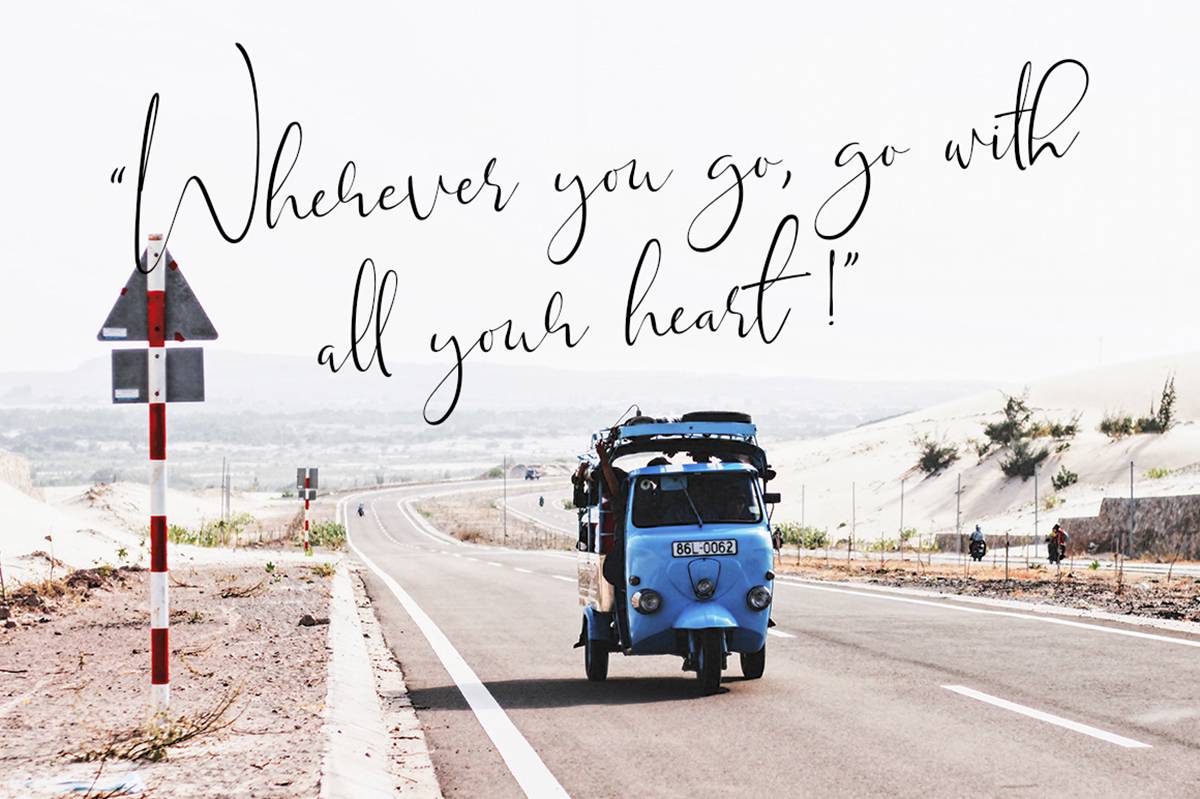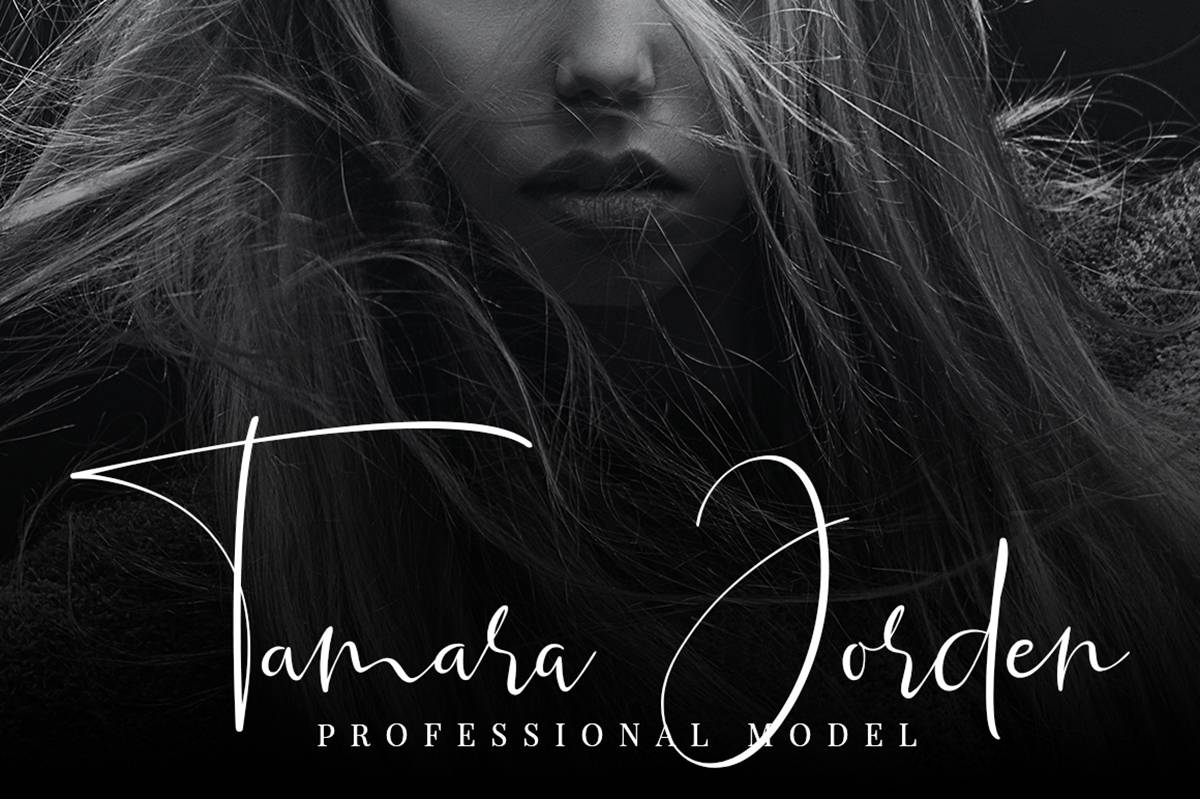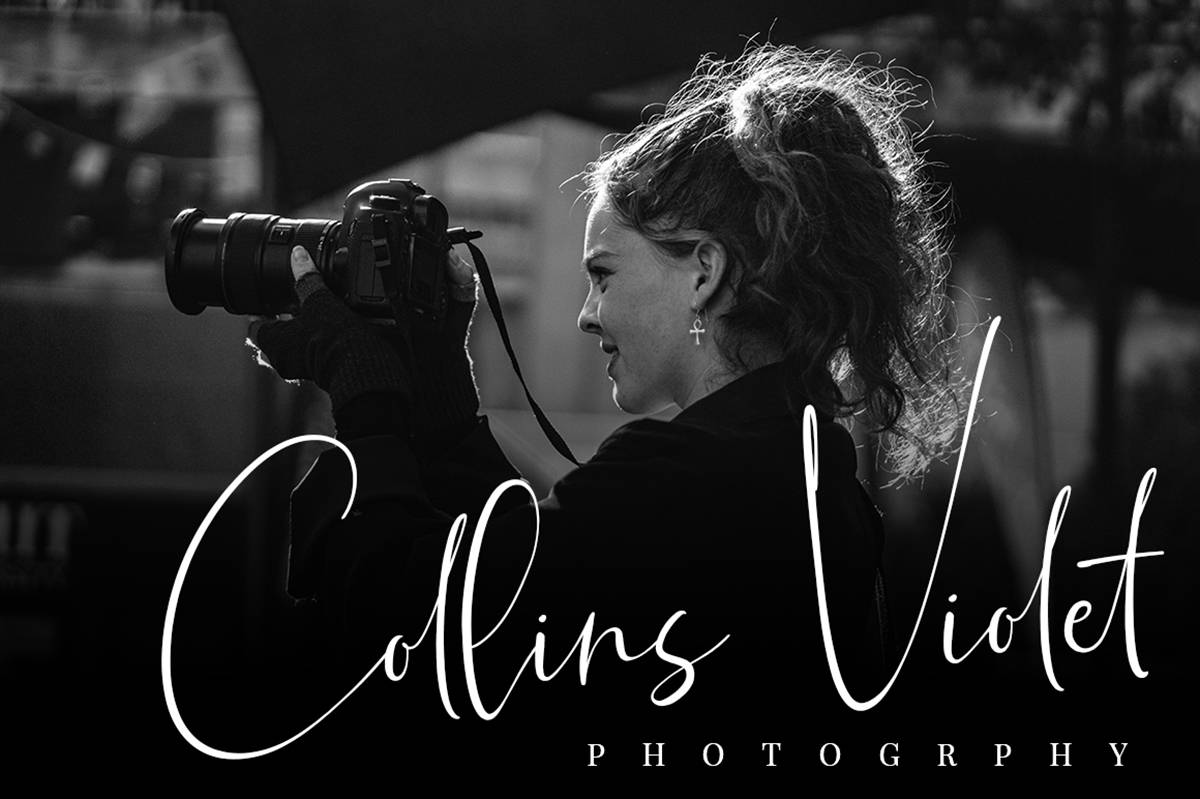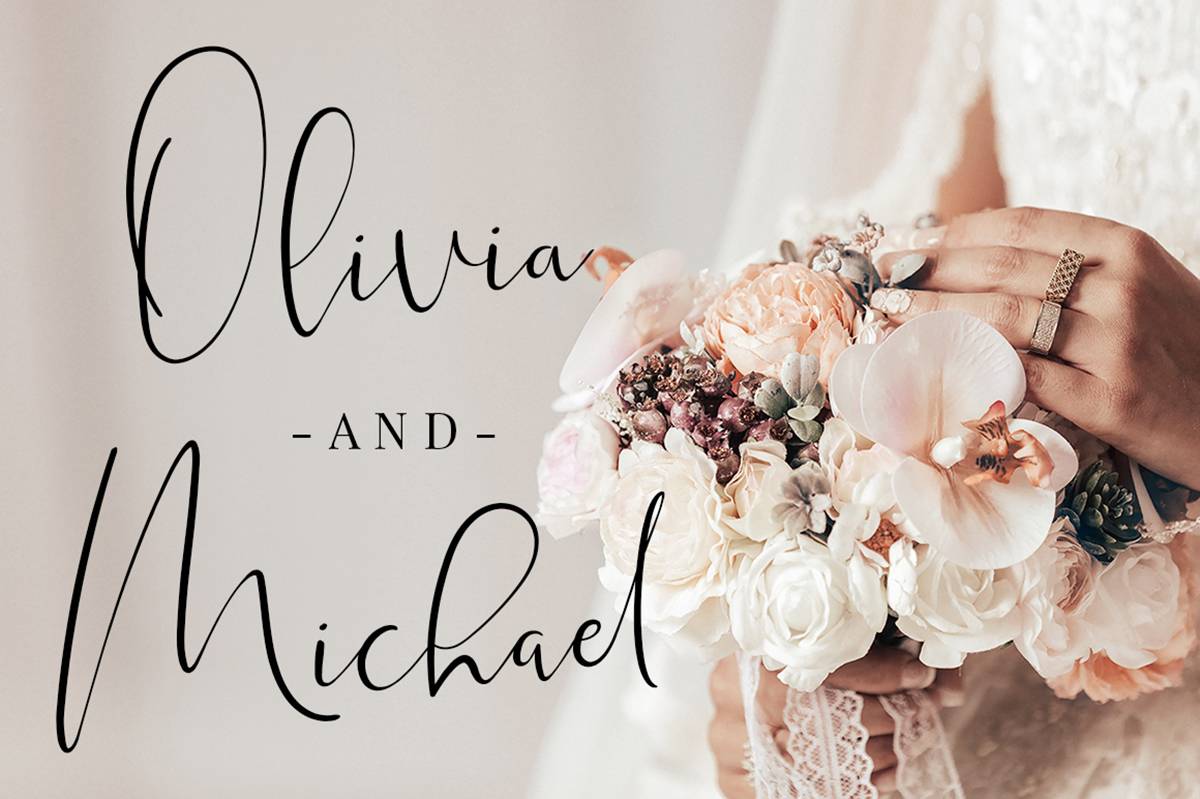
Sweet Madelyn is a delicate, handwritten script font characterized by its thin, wispy strokes and elegant, airy letterforms. Its tall, narrow letters with playful loops and subtle flourishes give it a graceful, whimsical feel, making it ideal for feminine branding, wedding invitations, and stylish editorial designs. This font conveys a light, personal touch that works beautifully in contexts where charm and sophistication are key.
Sweet Madelyn Font
About Sweet Madelyn Font